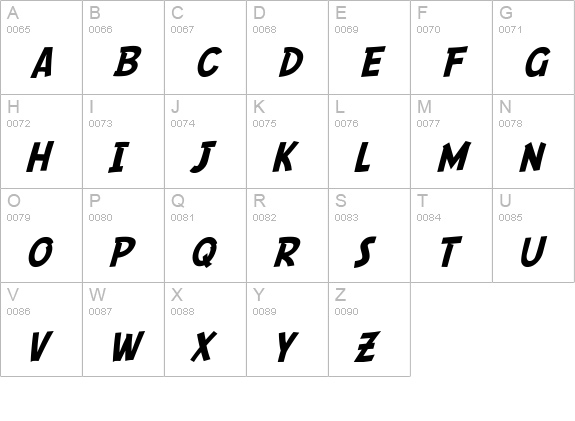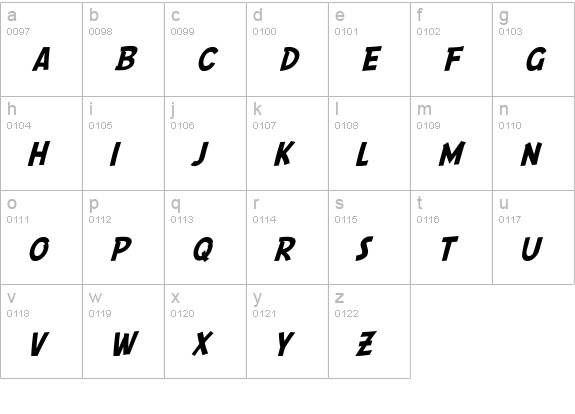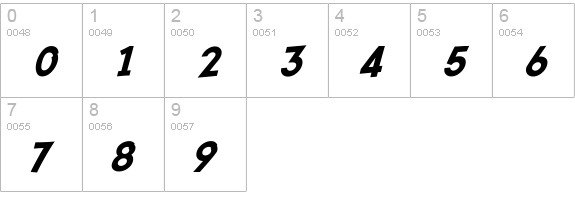
SF Comic Script Font Details
Introducing SF Comic Script font, a playful and vibrant typeface that brings comic book charm to any design project. With its whimsical and expressive letterforms, this font captures the essence of hand-drawn comic book speech bubbles and captions, adding a touch of fun and excitement to your artwork. SF Comic Script font is carefully crafted to mimic the pen strokes and strokes of a skilled comic book artist. Each character is meticulously designed to create a seamless and authentic comic book feel, making it perfect for creating comic strips, book covers, posters, and more. This versatile font offers a wide range of uppercase and lowercase letters, numbers, and punctuation marks, allowing you to create dynamic and engaging typography. Whether you're designing a superhero-themed birthday invitation or a vibrant comic book panel, SF Comic Script font will bring your designs to life. But what makes SF Comic Script font even more impressive is that it is available for free! Yes, you read that right. This incredible font is freely available to download at FontsMarket.com. Now you can add a touch of comic book magic to your designs without breaking the bank. So why wait? Download SF Comic Script font today and unleash your creativity. Whether you're a professional designer, an aspiring comic book artist, or simply someone who loves to play with typography, this font is a must-have. Get ready to captivate your audience with the dynamic and playful spirit of SF Comic Script font.